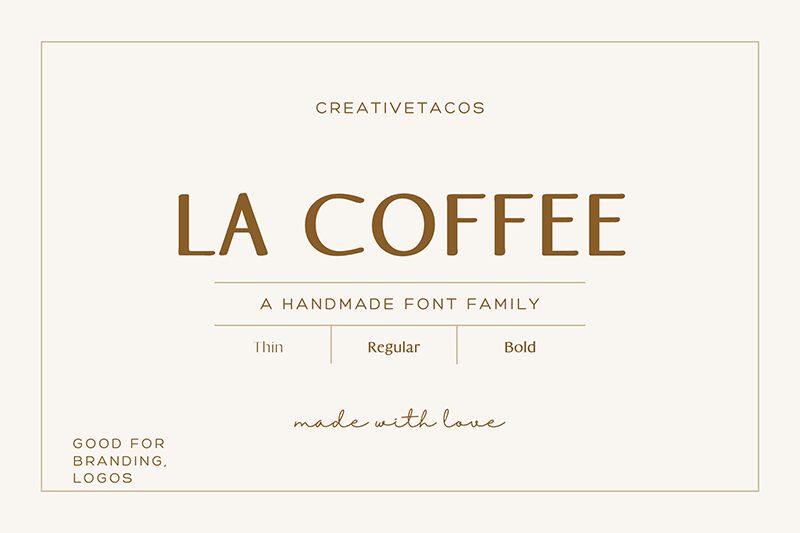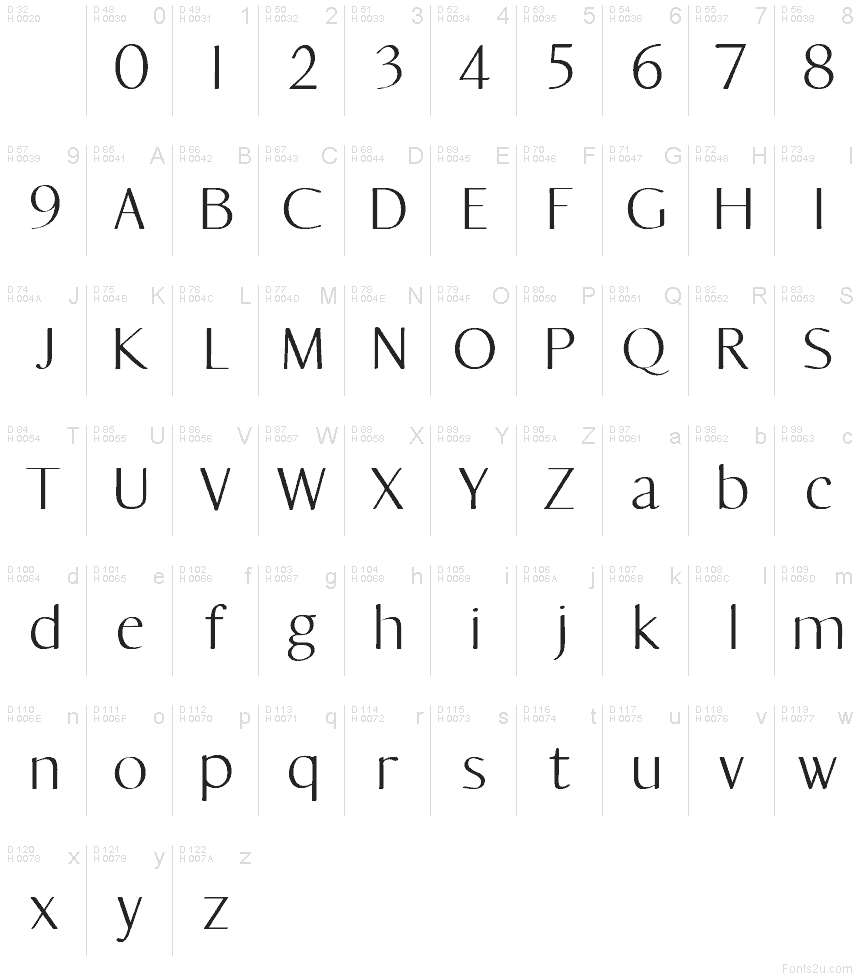
La Coffee Demo
La Coffee font by creativetacos is a free sans serif font. Its slender strokes, elegant curves, and airy spacing create a silky rhythm that feels both modern and quietly luxurious. There’s a gentle taper in the forms that catches the eye without shouting, giving headlines a refined, inky presence while staying crisp at medium sizes.
Using La Coffee, your work picks up a cosmopolitan sheen—great for café menus, boutique logos, packaging, lifestyle branding, magazine covers, and polished social posts. The open spacing keeps words readable while the graceful shapes add a touch of ceremony. For balance, pair this free font with a neutral grotesk for body copy, and let La Coffee take the spotlight at larger sizes.